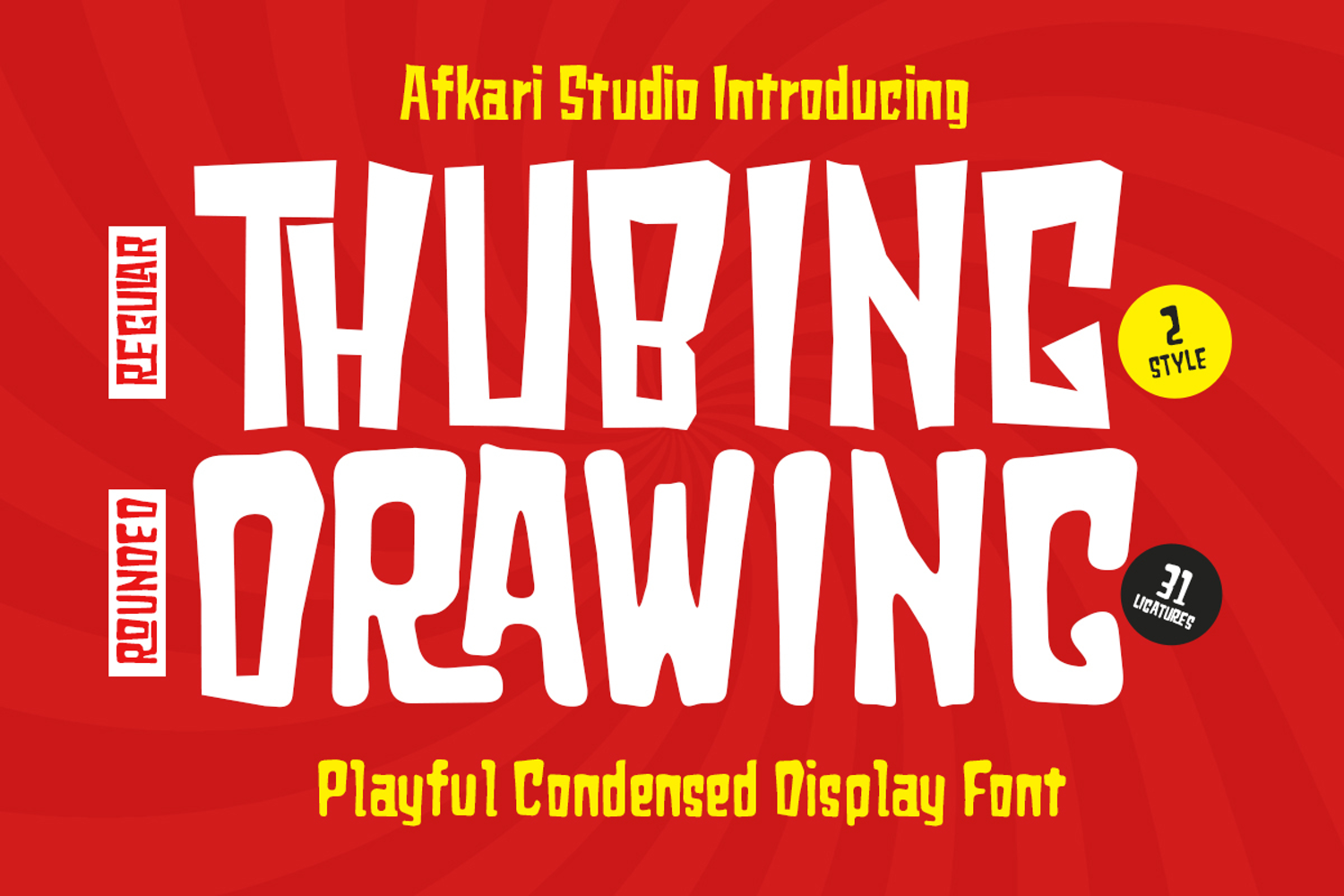
Thubing Drawing - Condensed Sans Serif Display Font
Thubing Drawing is a modern condensed sans serif display font crafted to deliver strong, clean, and contemporary typography for professional creative projects. Featuring narrow proportions and confident letterforms, this font maximizes visual impact while maintaining excellent readability.
Designed for designers who need stylish yet space-efficient typography, Thubing Drawing works perfectly for headlines, branding, posters, and promotional materials where strong presence and compact layout are essential.
Its modern minimalist style adapts seamlessly across both print and digital applications, making it ideal for branding projects, editorial layouts, advertising campaigns, packaging, and social media graphics.
Whether you're creating logos, posters, packaging, or marketing visuals, Thubing Drawing ensures your typography stands out with a modern condensed look.
Features;
- Uppercase, Lowercase, Number, and Punctuation
- Special Alternates and ligatures
- Mültîlíñgúãl Sùppört for; ä ö ü Ä Ö Ü ß ¿ ¡
Whether you're creating bold branding, modern posters, or impactful promotional materials, Thubing Drawing helps your design stand out with clarity and strong personality. Add a sleek and contemporary touch to your next creative project with this condensed sans serif display typeface.